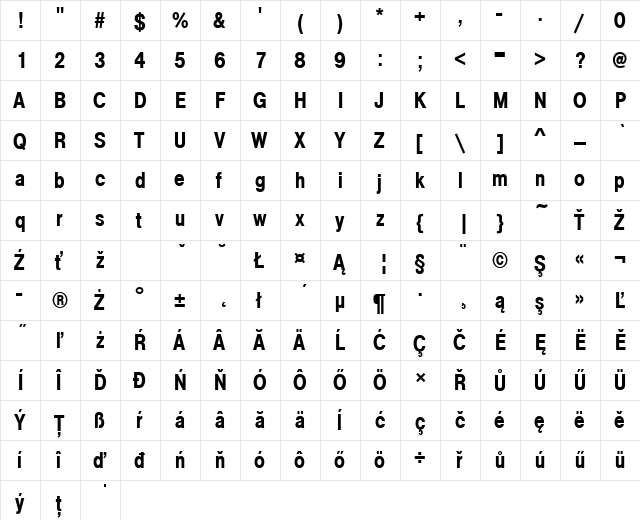
NimbusSanNo4DEEMedCon Regular
Design Context for NimbusSanNo4DEEMedCon Typeface
NimbusSanNo4DEEMedCon takes a measured approach to typography — its balanced proportions and neutral character make it a reliable workhorse for both digital and print work.